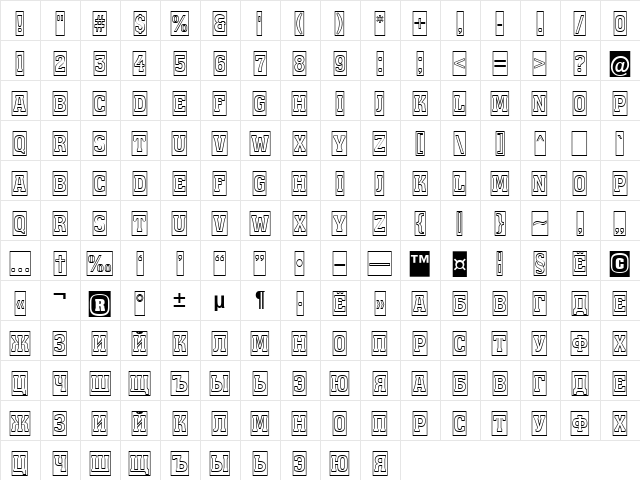
a_AssuanTitulCmOtl Medium
Design Context for a_AssuanTitulCmOtl Typeface
a_AssuanTitulCmOtl offers clean, dependable letterforms without strong stylistic allegiance, making it a practical choice for designers who need flexibility.